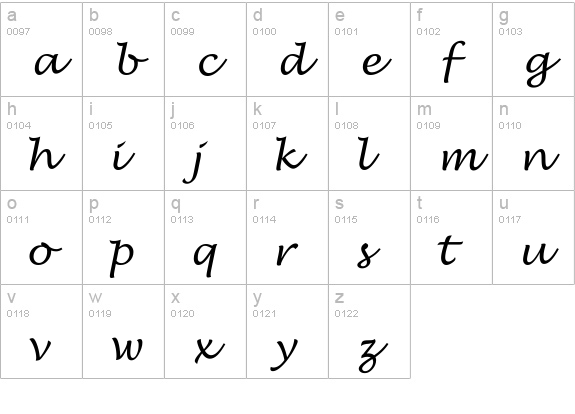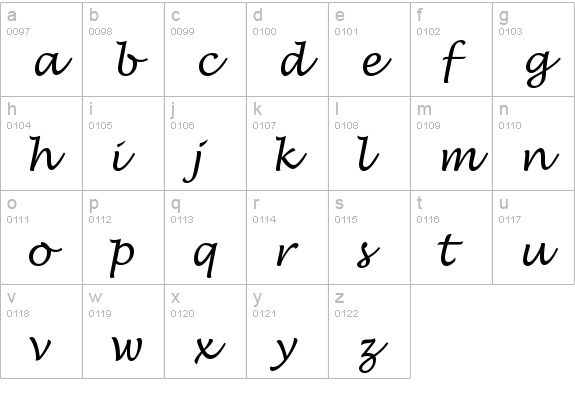
Lucida Handwrit Font Details
Lucida Handwrit font is a charming and elegant typeface that exudes a sense of warmth and friendliness. Its flowing and smooth handwritten style adds a personal touch to any design project, making it perfect for invitations, greeting cards, and other creative endeavors. The free-spirited nature of Lucida Handwrit font adds a whimsical and playful element to your text, while still maintaining a sense of sophistication and grace. This versatile font is freely available to download at FontsMarket.com, allowing you to easily incorporate its unique charm into your designs without any cost. Whether you're looking to add a touch of personality to your branding, create eye-catching social media graphics, or craft heartfelt messages, Lucida Handwrit font is the perfect choice for bringing a sense of warmth and individuality to your projects.